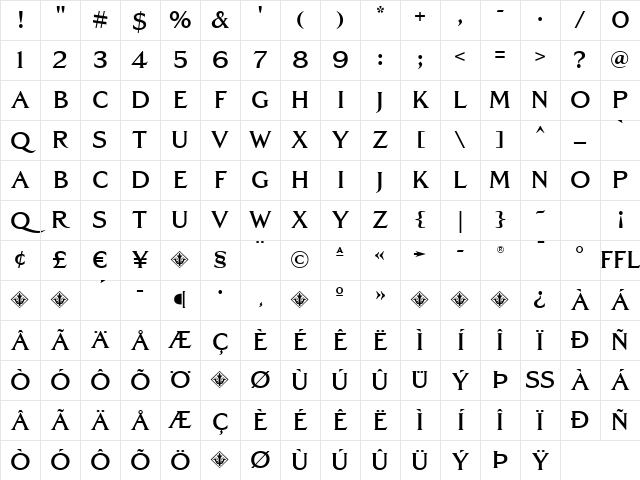
GrandCentral-Bold Regular
Designer: Tobias Frere-Jones
Design Context for GrandCentral-Bold
GrandCentral-Bold is a composed and adaptable typeface that performs quietly and consistently across a wide range of design contexts. Its bold stroke weight gives it real presence on the page.